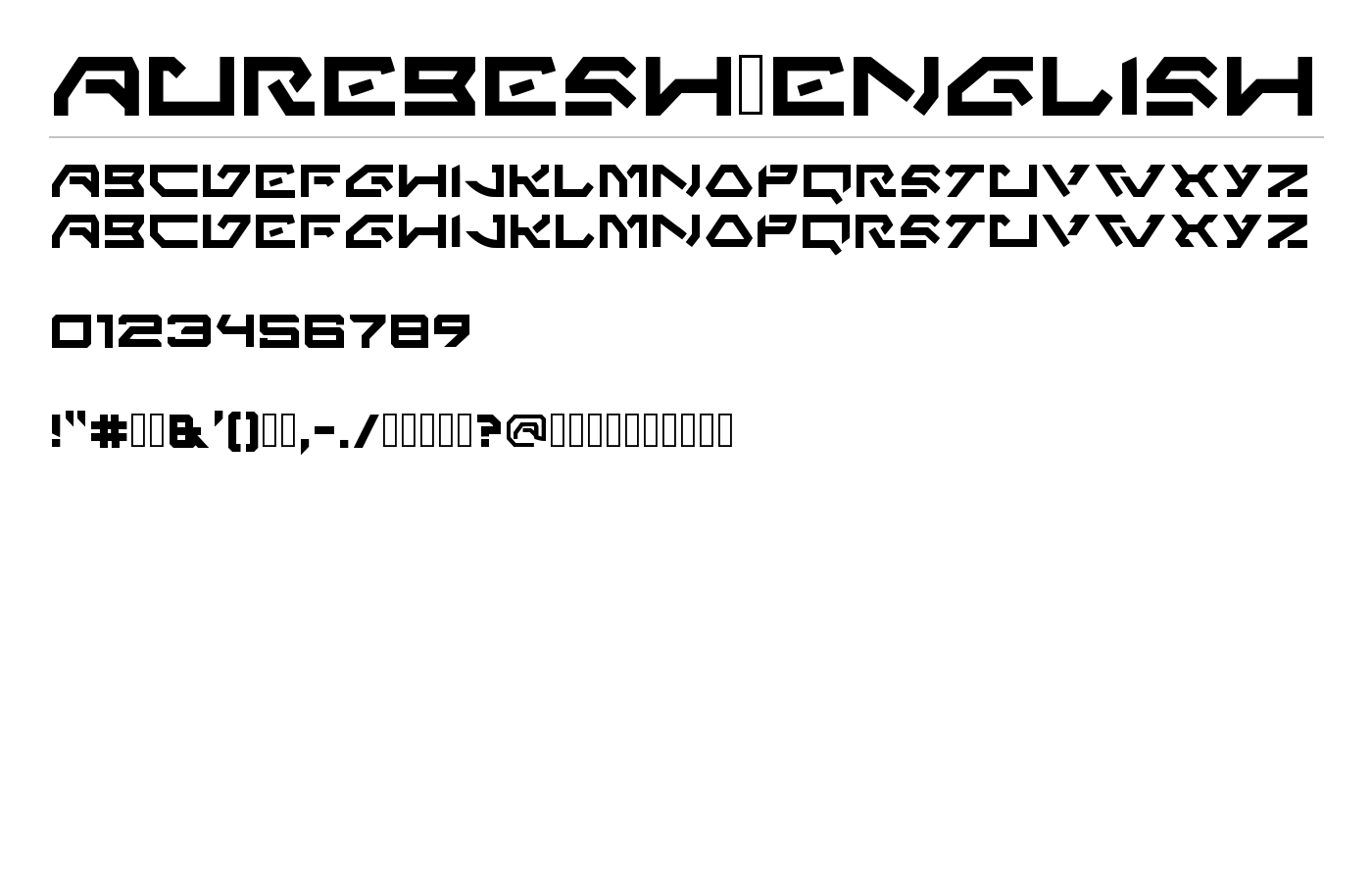
Aurebesh_english is a bold, angular sans serif font with a futuristic and geometric style that evokes a sci-fi or tech-inspired feel. Its sharp lines, unique letter shapes, and blocky forms make it ideal for creative projects needing a space-age or digital vibe, such as logos, posters, and branding that aims for a modern, edgy look. This distinctive font works best in display settings where its strong personality can shine.
Aurebesh_english Font
About Aurebesh_english Font